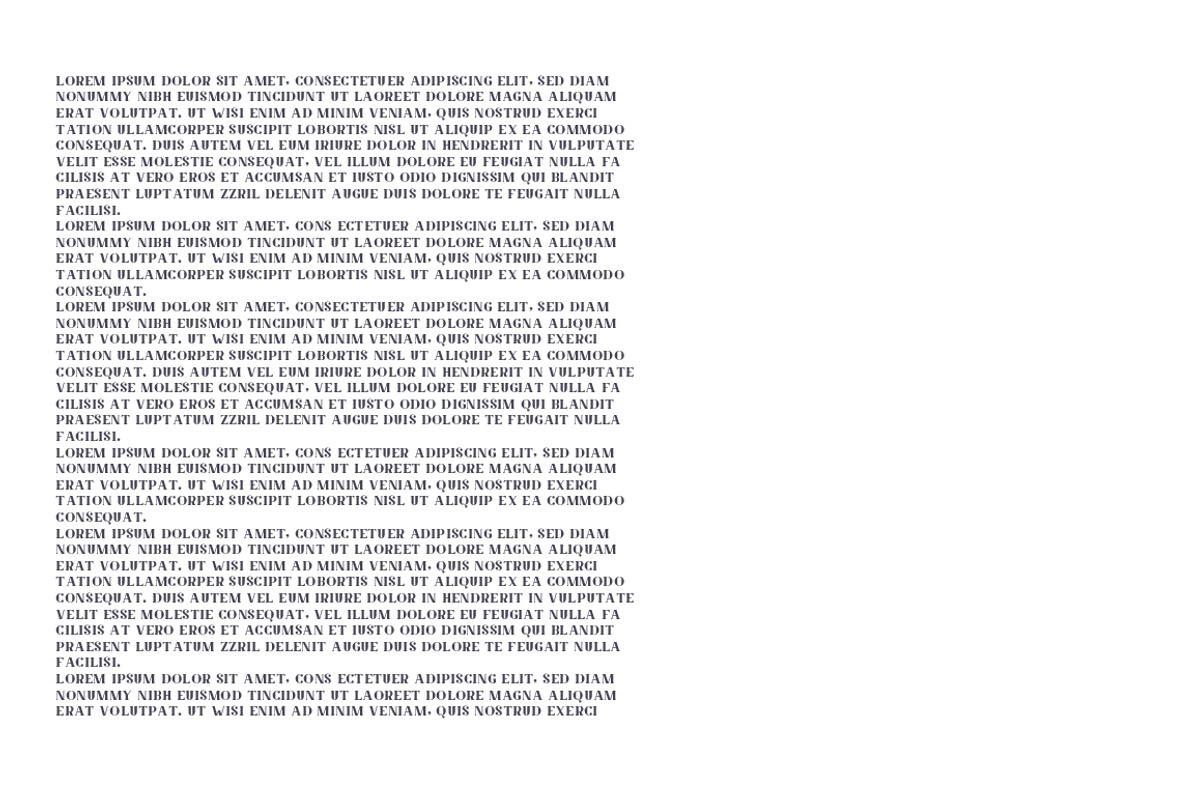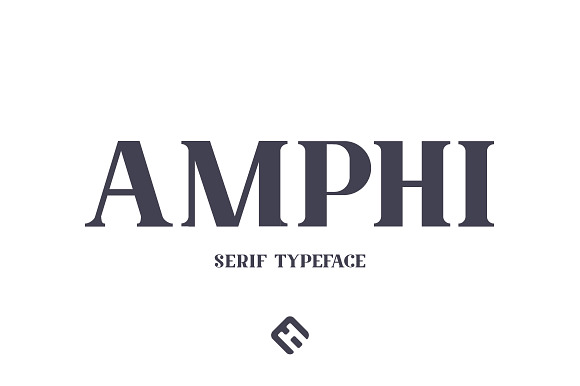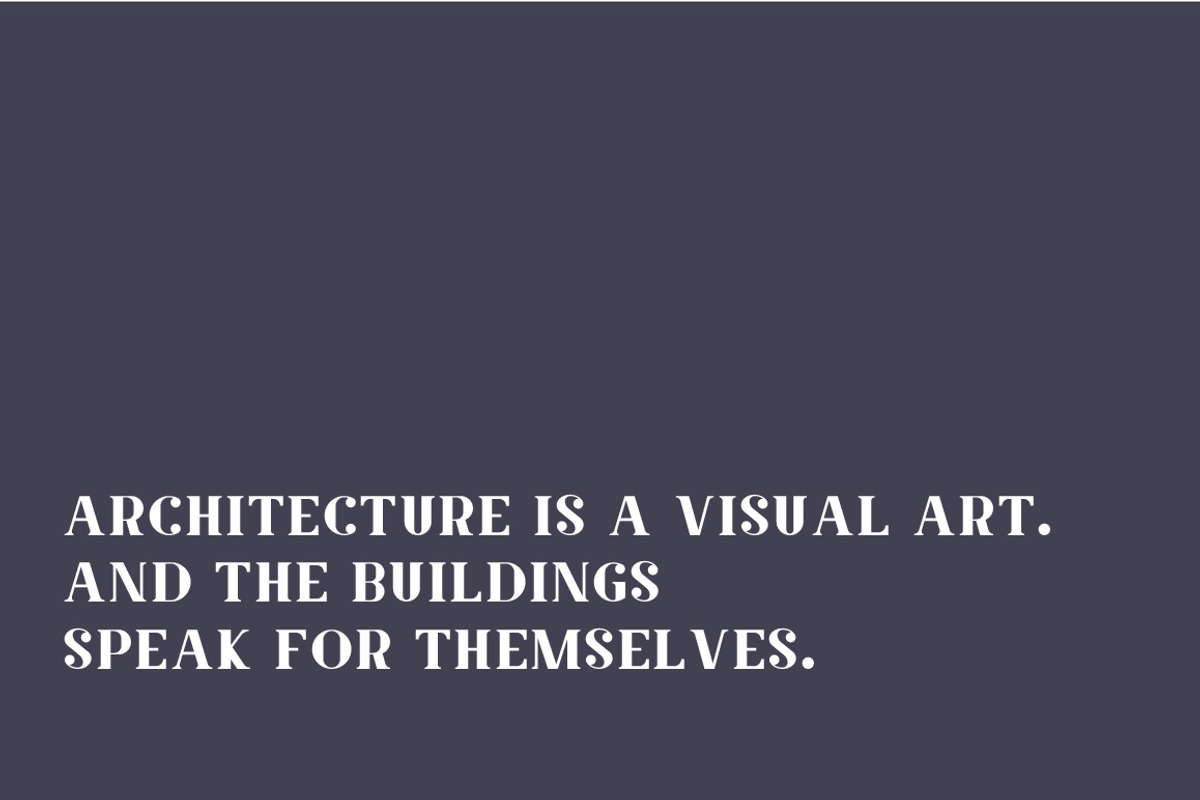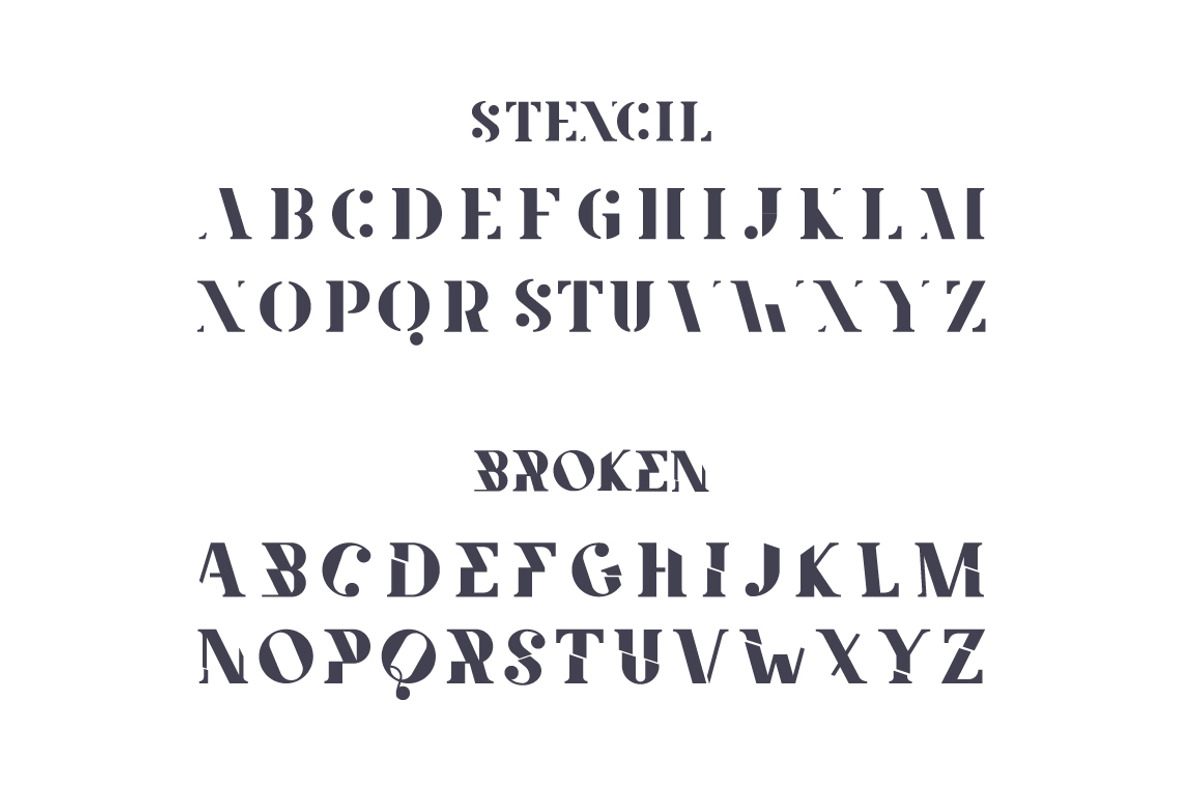
Amphi Typeface
Amphi is a bold & sturdy serif typeface taken influence from ancient roman style architecture. Comes with regular, stencil and broken.
- Comes with regular, stencil and broken.